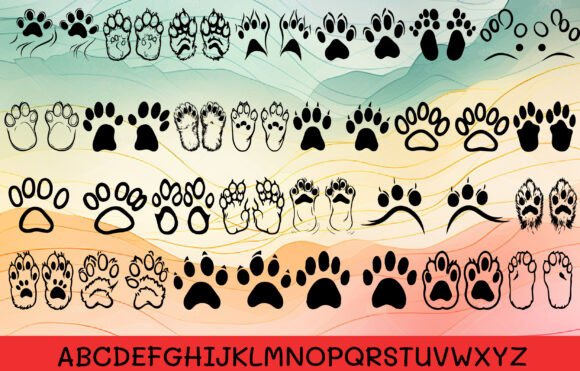
Introduction to Cute Cat Paws Font
Do you remember the moment when you stumbled upon a unique design element that sparked your creativity and changed the way you approach your projects? For me, it was a set of adorable cat paw designs that I used to create a custom invitation for a friend’s cat-themed birthday party. The combination of cute cat paws and colorful fonts instantly elevated the design, making it stand out from the rest. Today, I’m excited to share with you a design resource that will bring a similar level of cuteness and creativity to your projects – the Cute Cat Paws Font!
This set of 26 unique paw designs, each matching a letter from A to Z, is a must-have for any cat lover and designer. With both OTF and TTF file formats available, you can easily incorporate these adorable elements into your crafting, decorating, and creative projects. Whether you’re working on a digital design or a physical craft, the Cute Cat Paws Font is sure to add a touch of whimsy and fun to your work.
Key Features of Cute Cat Paws Font
- Unique, whimsical design featuring cute cat paws, perfect for creative projects and adding a playful touch.
- Perfect for use in greeting cards, party decorations, and other creative projects requiring a fun, cat-themed design element.
Honest Review: Cute Cat Paws Font
I recently stumbled upon the Cute Cat Paws Font, and I’m excited to share my honest thoughts with you.
What works well: ✨ The font is perfect for any creative project that needs a touch of whimsy and playfulness. The high-quality design is sure to add a delightful touch to your work. I also appreciate the transparent background, which makes it easy to use in various design contexts. Plus, the free download is a major plus for designers on a budget.
What doesn’t work well: ⚠️ The font is not suitable for professional or formal projects, as it may come across as too cute or childish. Additionally, the font’s uniqueness may not be a good fit for projects where you want to convey a sense of sophistication or elegance.
Overall impression: I think the Cute Cat Paws Font is a great addition to any designer’s toolkit. While it may have its limitations, it’s perfect for creative projects where you want to add a playful touch. If you’re looking for a fun and lighthearted font, I highly recommend giving it a try.
- Perfect for creative projects
Tips for Getting the Most Out of Cute Cat Paws Font
To get the most out of the Cute Cat Paws Font, use it in creative projects that require a playful and whimsical touch. You can also experiment with different font sizes and colors to create a unique look.
The Cute Cat Paws Font is perfect for:
- Designing children’s products and packaging
- Creating social media graphics and ads
- Developing branding and marketing materials
- Designing greeting cards and party invitations